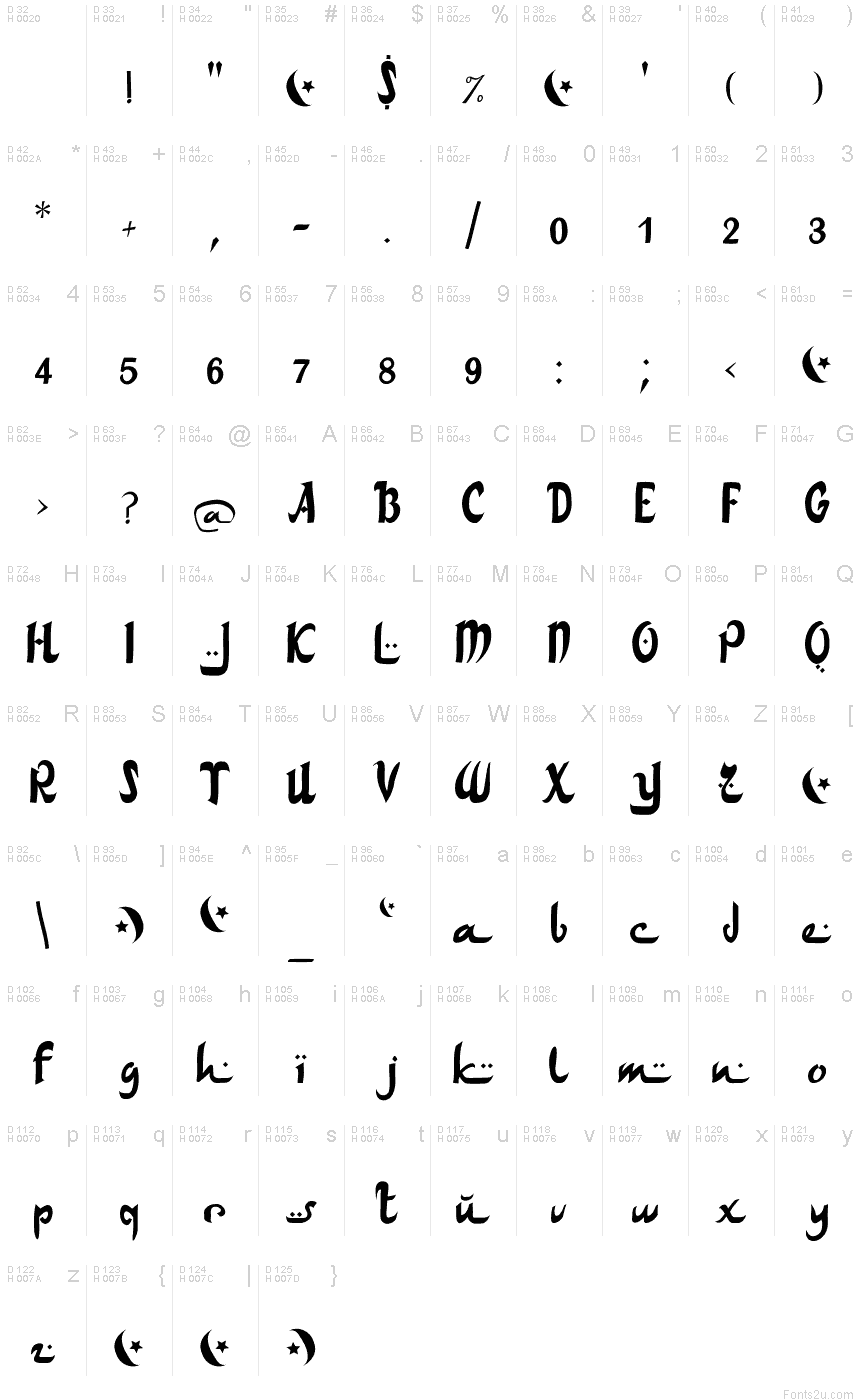
Arab Dances Medium Italic font by Typoasis/CybaPee is a free decorative faux Arabic typeface that instantly sets a Middle Eastern–inspired mood. Its flowing strokes, swooping curves, and dotted accents mimic the rhythm of calligraphy while keeping everything firmly legible in Latin script. The italic slant adds a sense of movement, as if the letters are swaying to music, making titles feel lively and atmospheric rather than stiff or generic.
Using Arab Dances Medium Italic, you can bring a cinematic, exotic flair to restaurant menus, hookah lounge branding, themed party invitations, book or game covers, posters, and signage. This free font shines in short phrases and bold headlines; pair it with a clean sans serif for body copy to keep your layouts readable and grounded. Try generous letter spacing and larger sizes to let the curves and loops really breathe.